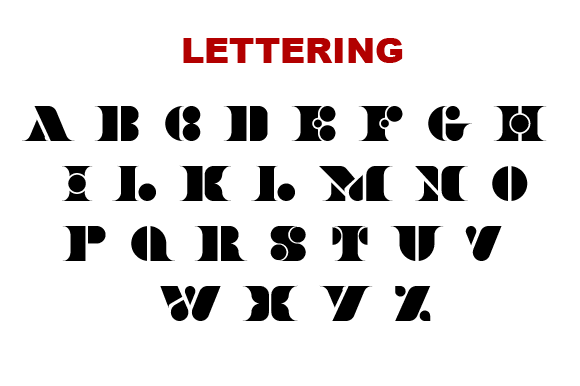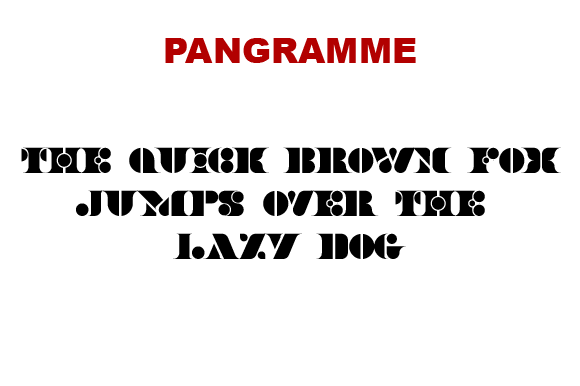
Introduction to Skip Font
Skip is a massive and imposing display font.
Skip is aimed at all professionals: graphic designers, web designers, artists, and printers Skip will give its full potential in titles, banners, creation of initials.
Key Features of Skip Font